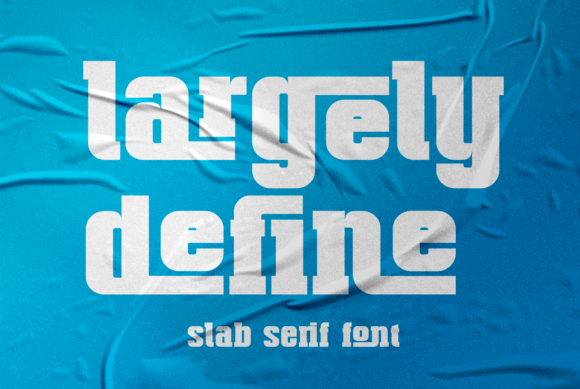
Behold Largely Define, the new incomparable slab serif font that will redefine your typographic experiences. This bold, thick-lettered, and assertive font is not just a font; it's a statement. It's a testament to your individuality, your creativity, and your refusal to blend in.
Welcome to the world of Largely Define, a font that embodies boldness in every curve and angle. Its thick strokes command attention, demanding to be seen and heard. Use it to create headlines that jump off the page, logos that leave a lasting impression, or posters that make a statement. With Largely Define, you'll never have to worry about your words getting lost in the noise.
This font is not for the faint of heart. It's for those who dare to be different, who aren't afraid to make a statement. It's for those who want their words to resonate, to leave an impact, to be remembered. If you're ready to elevate your designs to new heights, then Largely Define is the font for you.
Unleash your creativity and explore the endless possibilities that Largely Define offers. Craft stunning designs that captivate and inspire, leaving your audience in awe. From sleek and sophisticated logos to eye-catching social media posts, Largely Define will transform your words into visual masterpieces.
"Largely Define is the perfect font for making a statement. It's bold, it's assertive, and it demands attention. I love using it for headlines and logos that need to make an impact." - John Smith, Creative Director
"I've been using Largely Define for my social media posts and it's been a game-changer. My engagement has gone through the roof! This font is a must-have for anyone who wants to stand out on social media." - Sarah Jones, Social Media Manager
"Largely Define is the perfect font for my bold and daring designs. It's thick strokes and assertive personality add an extra layer of depth and sophistication to my work." - Tom Brown, Graphic Designer